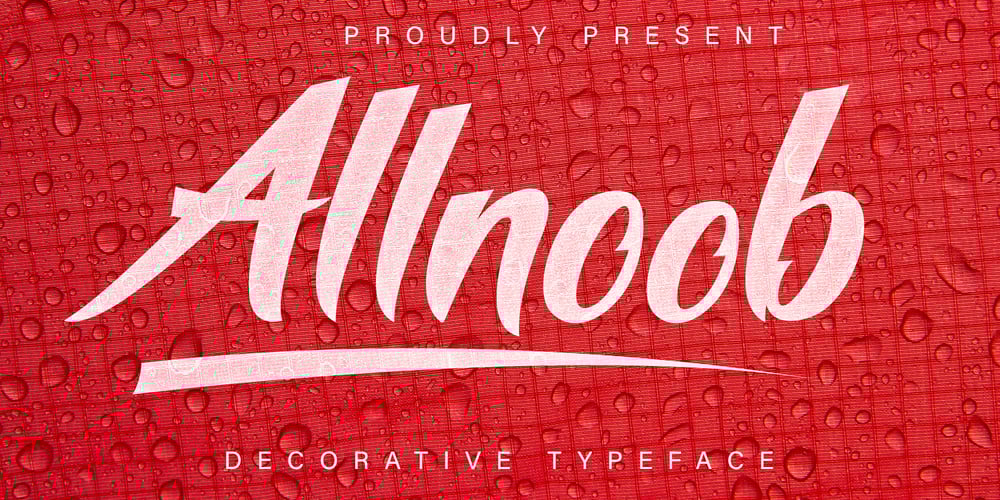
Allnoob Font Family was designed by Irfan Mahmudin and published by Skiiller Studio. Allnoob contains 1 styles and family package options. Allnoob Typeface is one of the elegant decorative fonts neatly arranged and cool, you can also use it for business, clothing, movie titles, and more